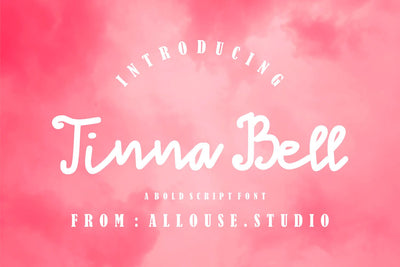
Tinna Bell - Bold Script Font
Introducing by Allouse.Studio
Proudly Present, Tinna Bell.
Tinna Bell is a Bold Script Font.
Tinna Bell is perfect for product packaging, branding project, megazine, social media, wedding, or just used to express words above the background.